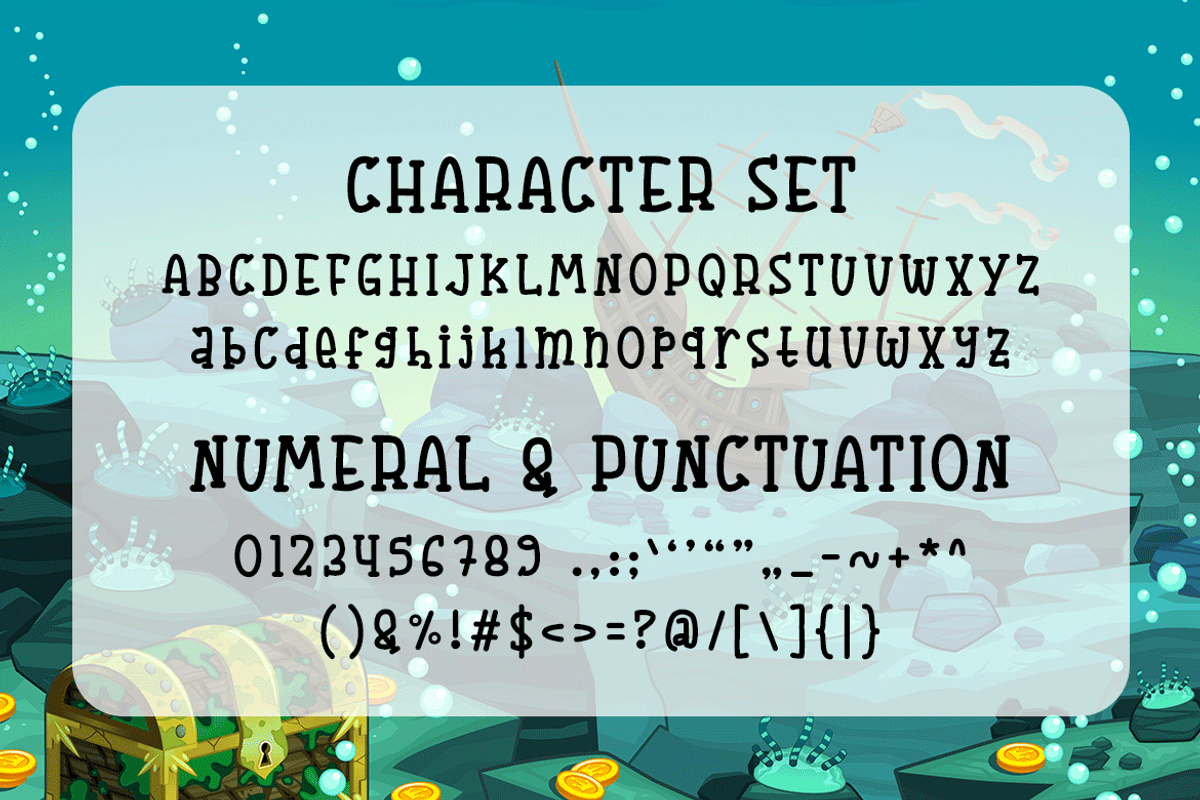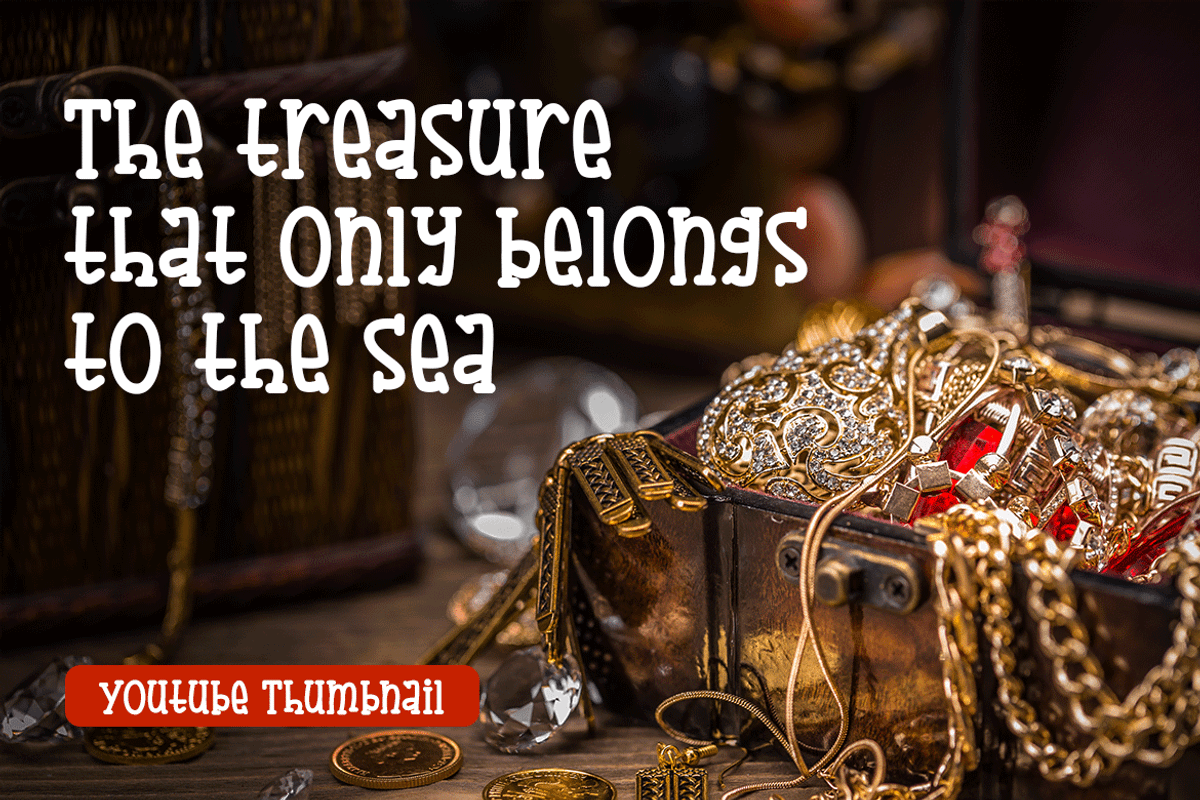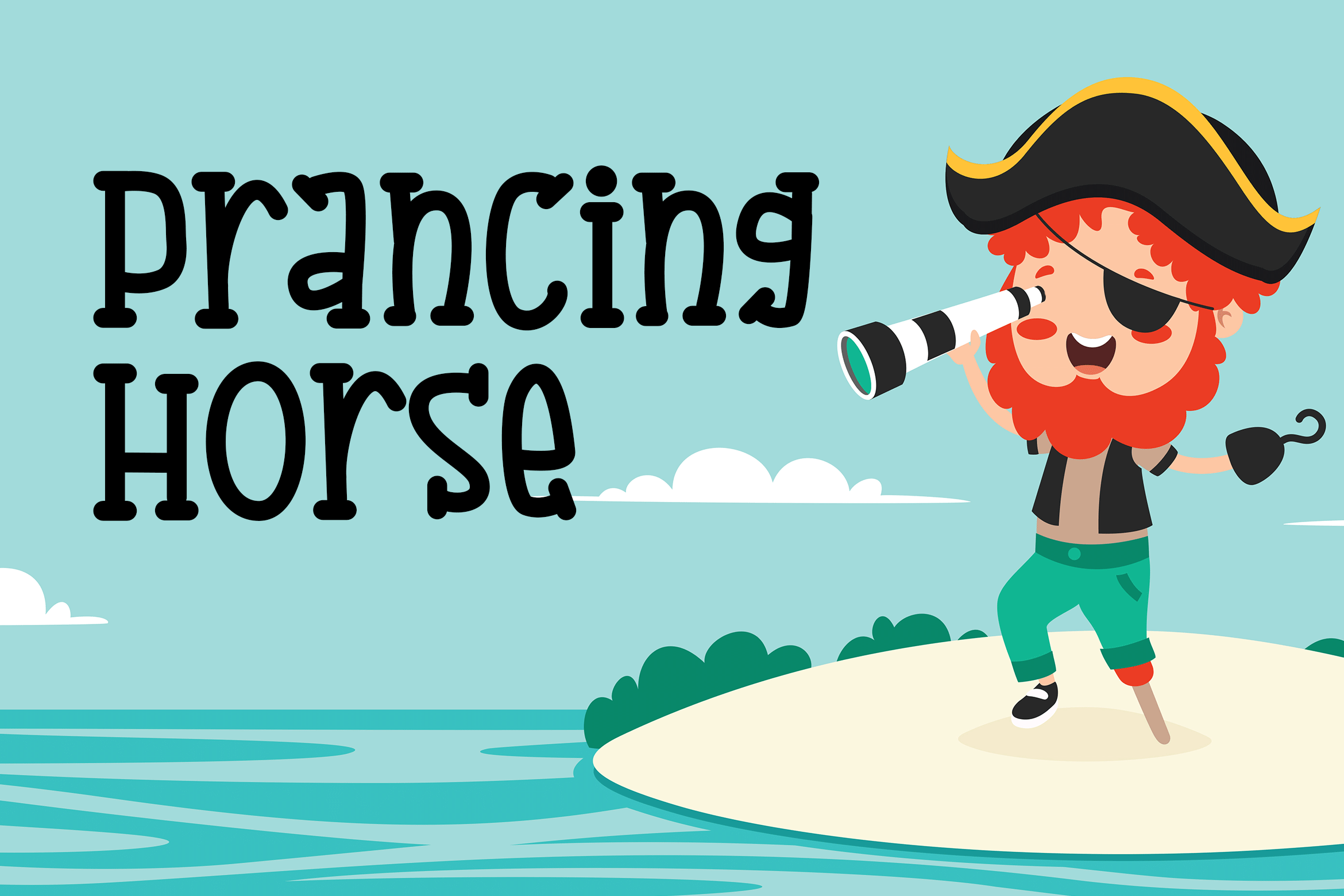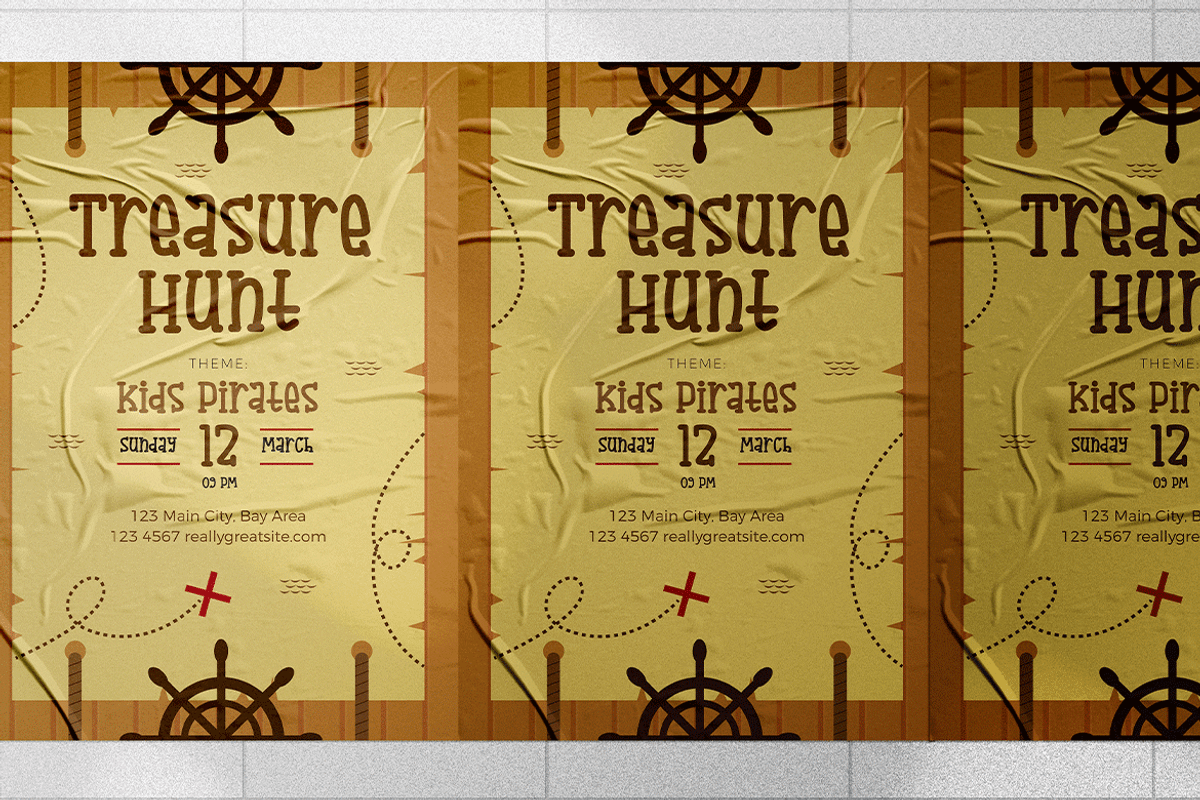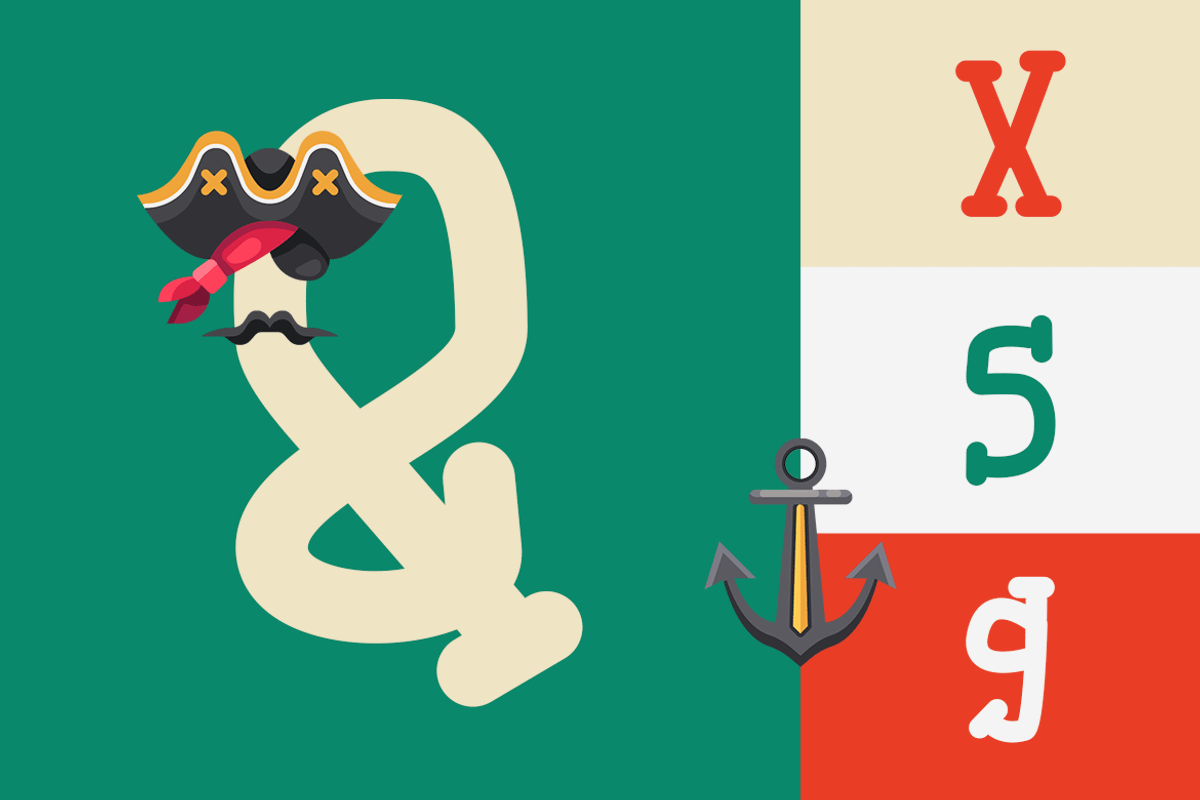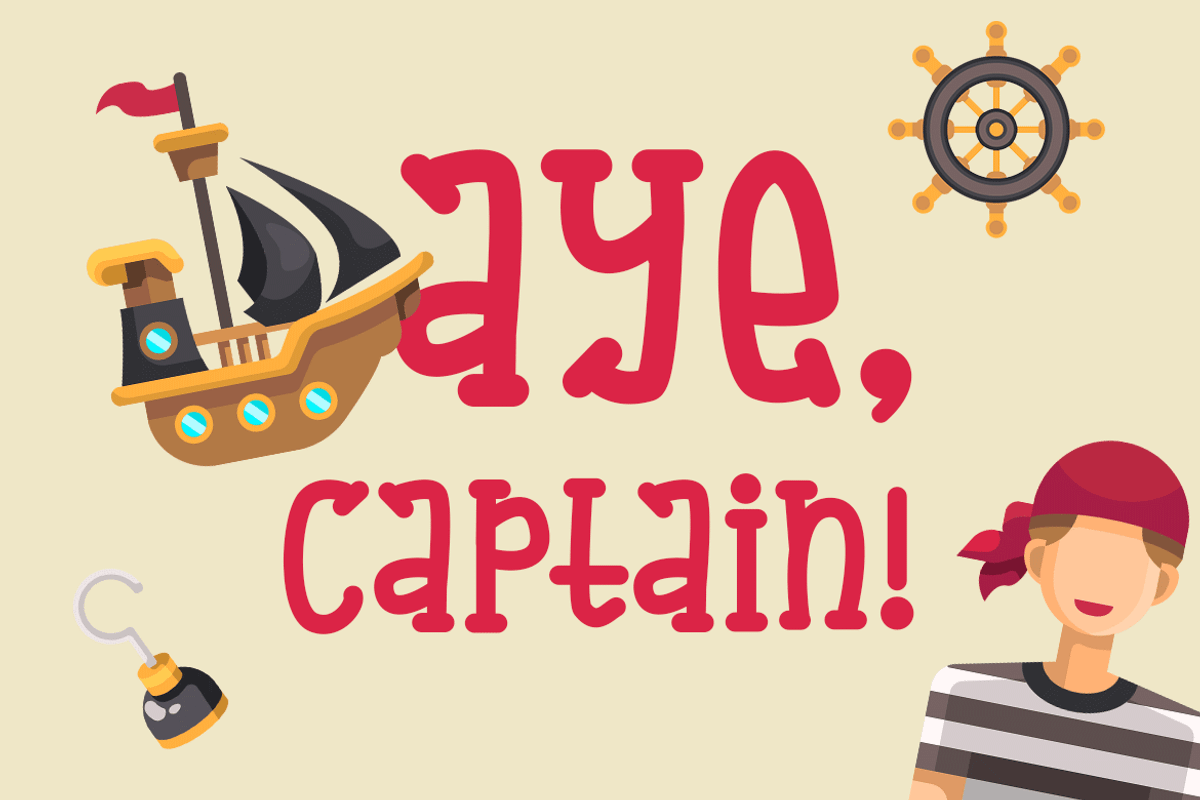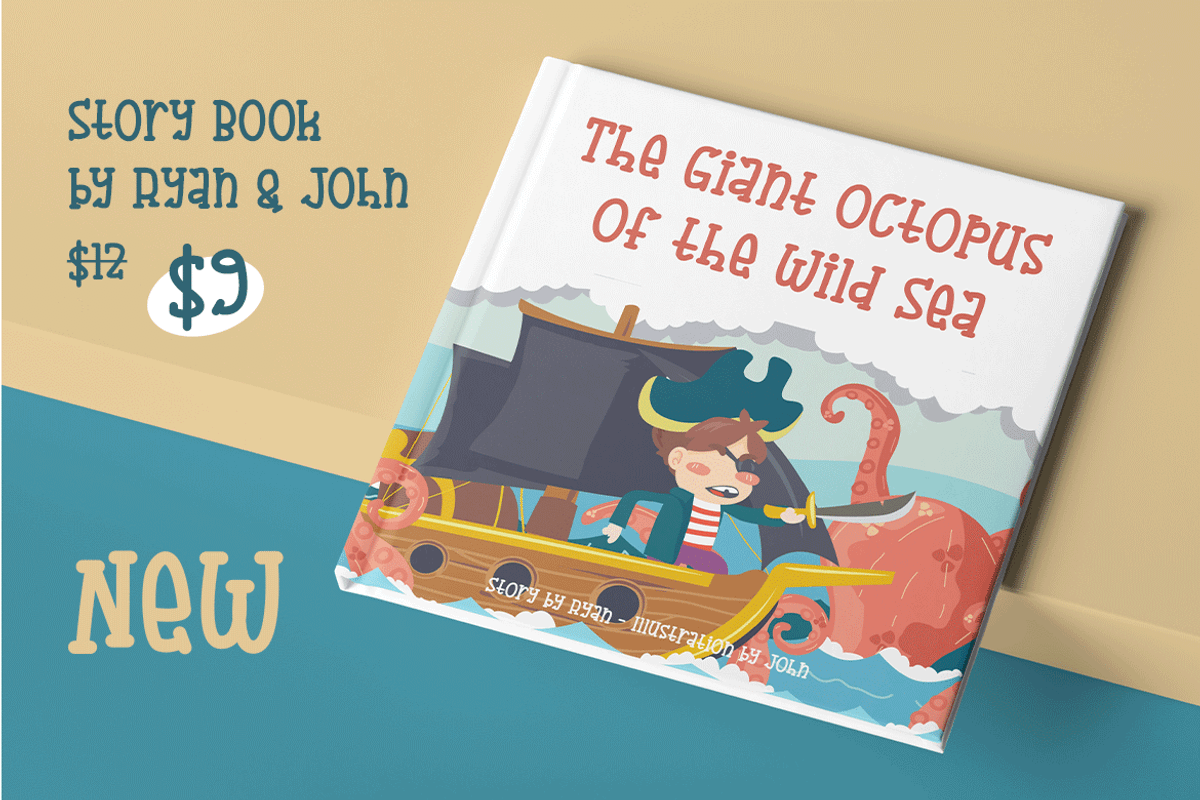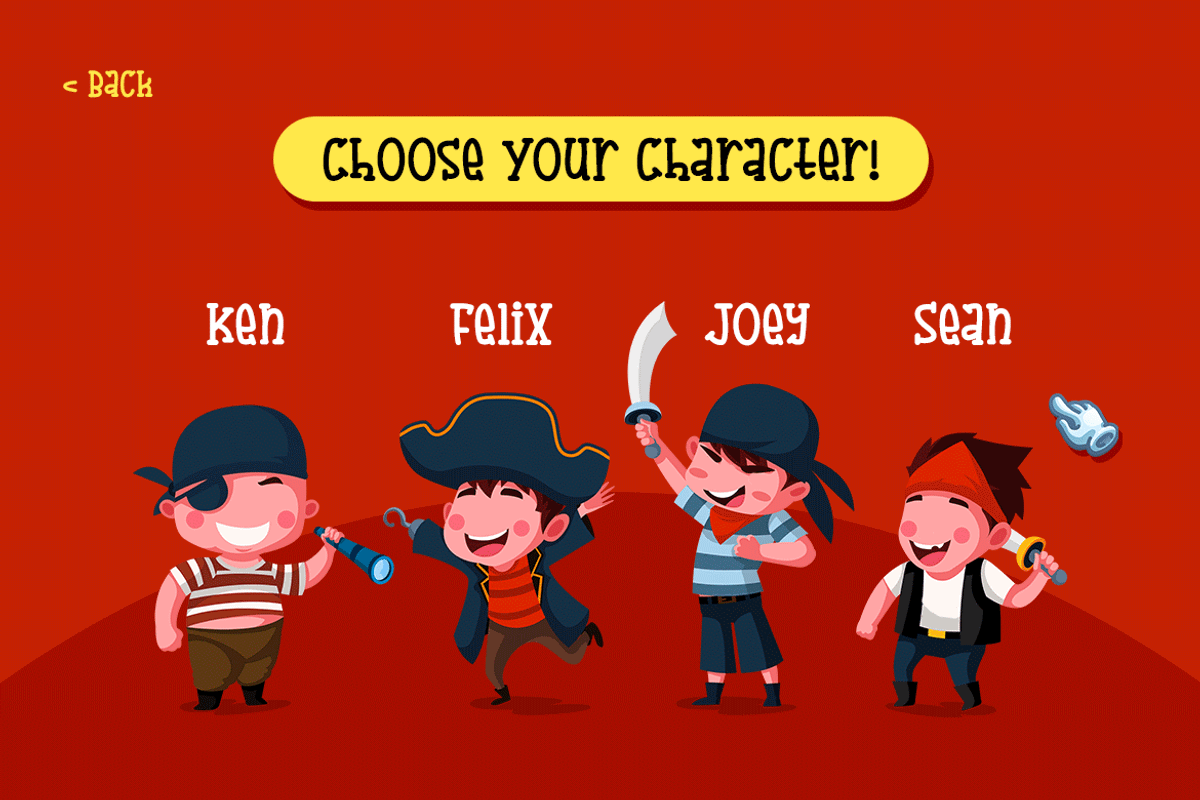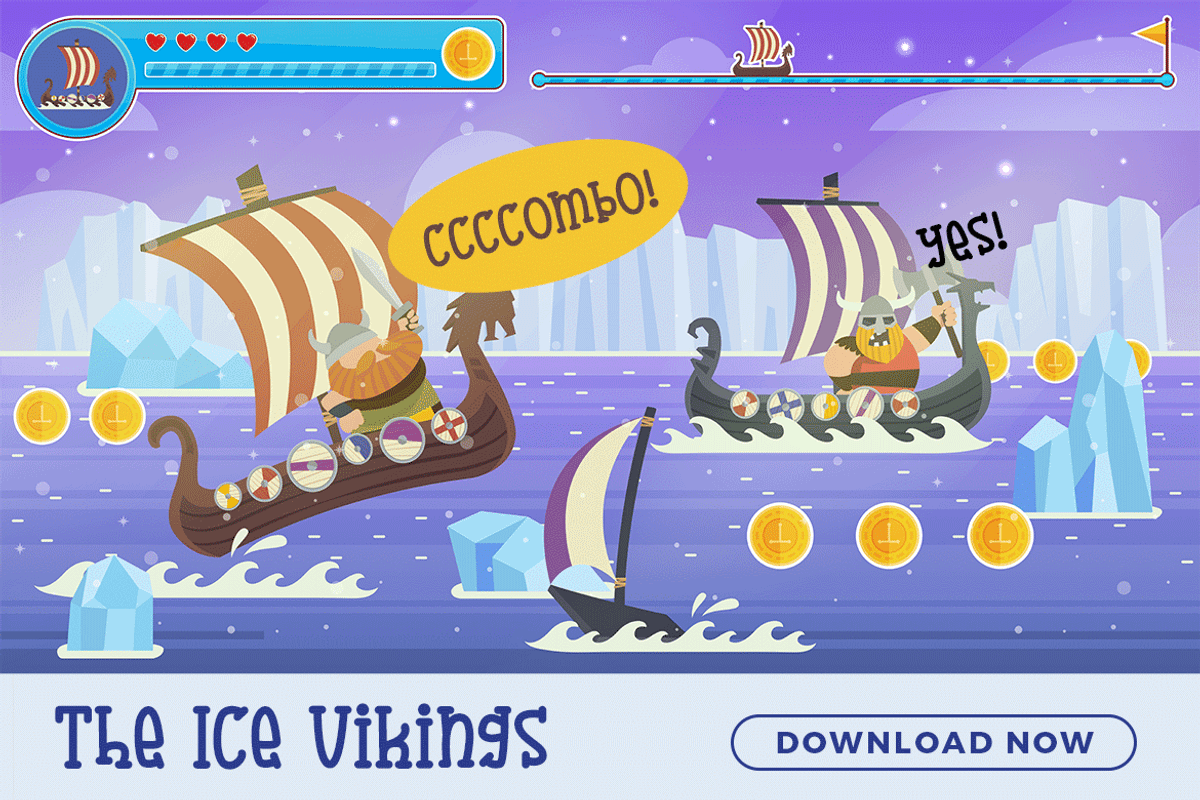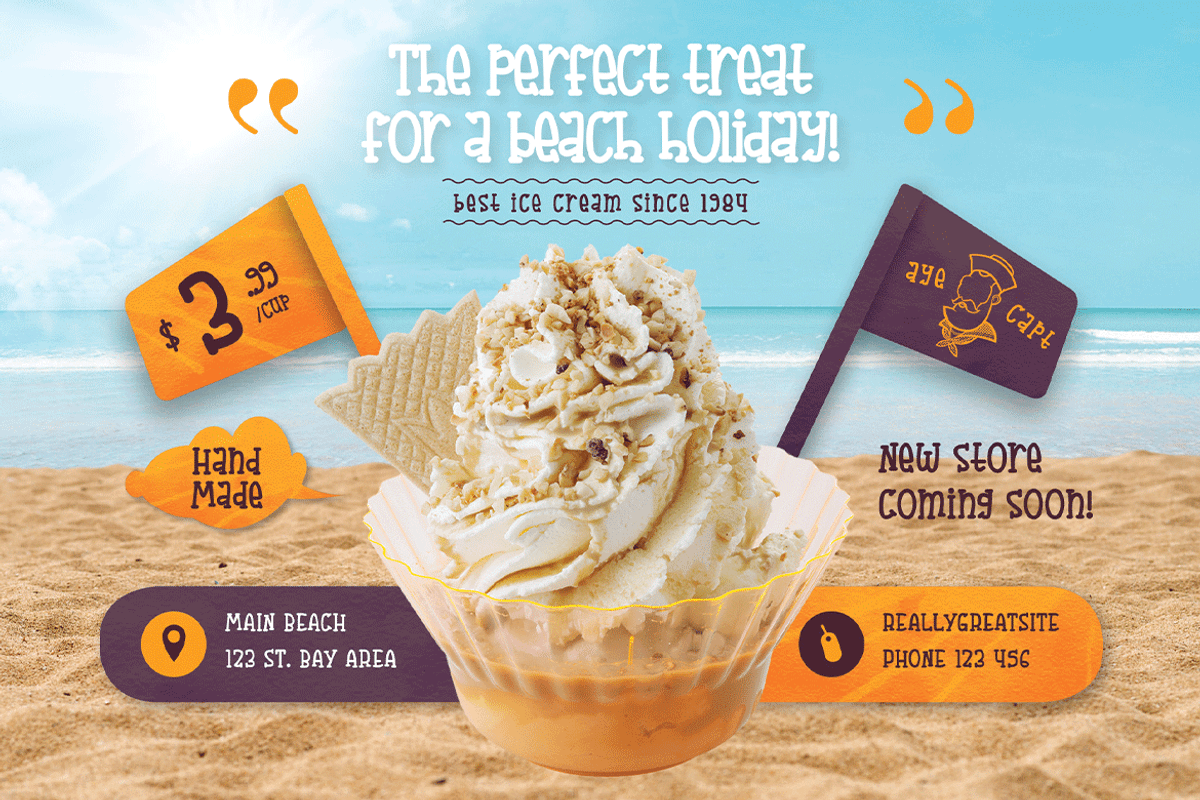
Prancing Horse – Kids Font
Introducing Prancing Horse, the perfect font for all your kid’s creative projects! This Cartoon Font is designed to make any project stand out with its unique and playful style. Prancing Horse is the ideal font for those looking for a Comic Font, Cute Font, Funny Font, Instagram Font, Kids Font, Modern Font, Movie Font, Sans Serif Font, School Font, or Youtube Font.
With Prancing Horse, your project will have a fun and lively feel. It’s perfect for creating eye-catching headlines, titles, and logos. This Modestype font is versatile and can be used for a wide range of projects, from children’s books to social media posts.
But that’s not all! Prancing Horse also comes with plenty of nature foliage and floral elements, adding an organic and natural style to the font. This makes it perfect for projects that require a playful and whimsical touch.